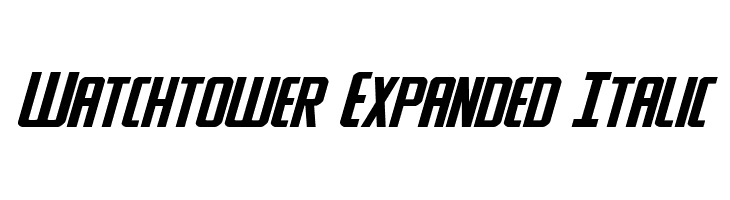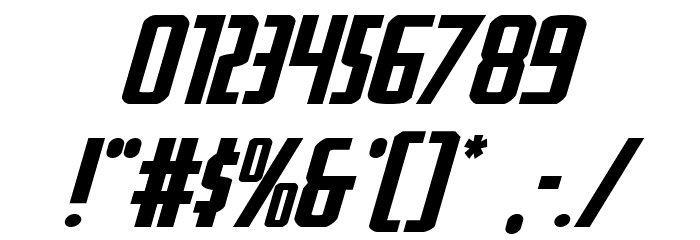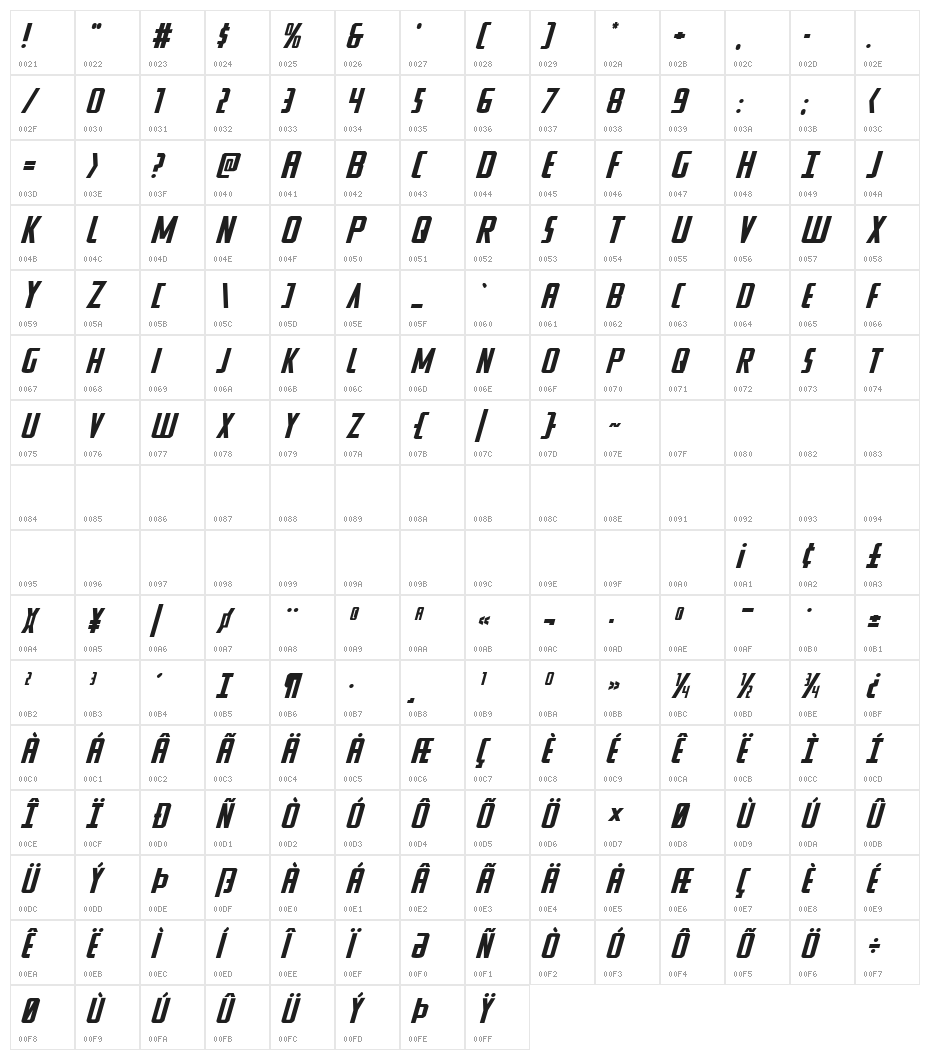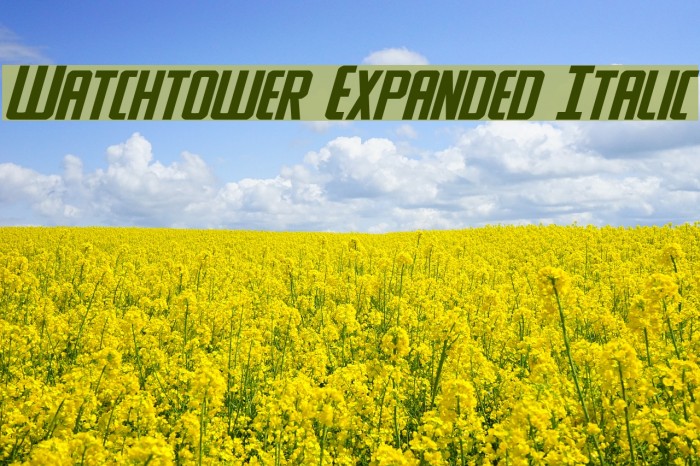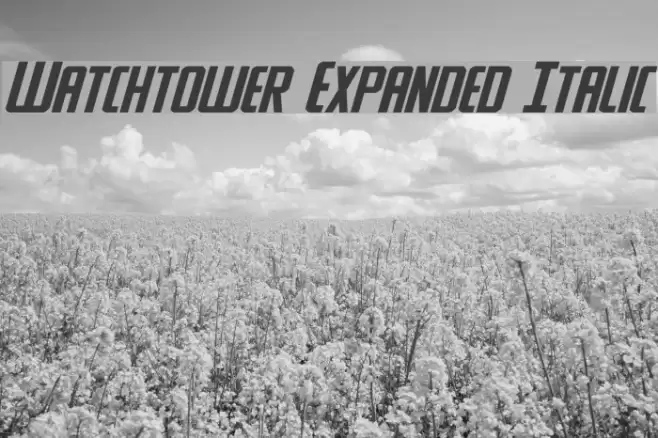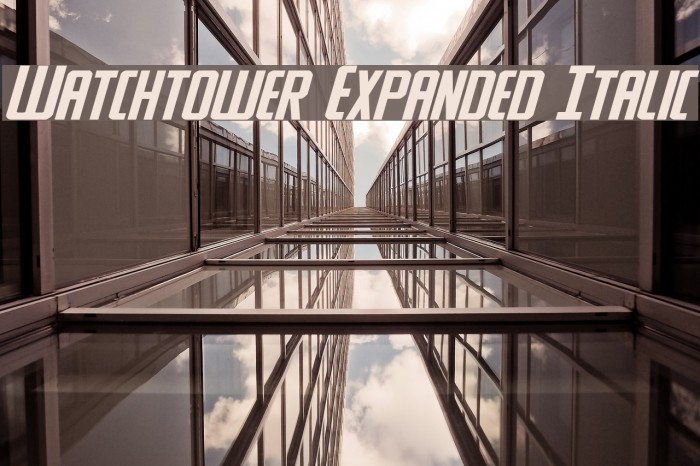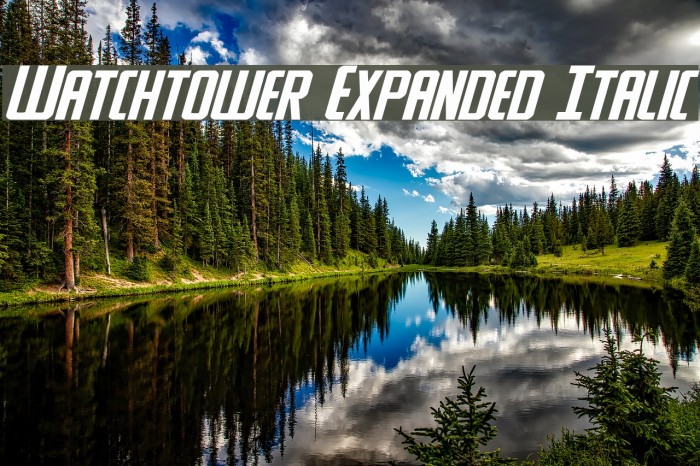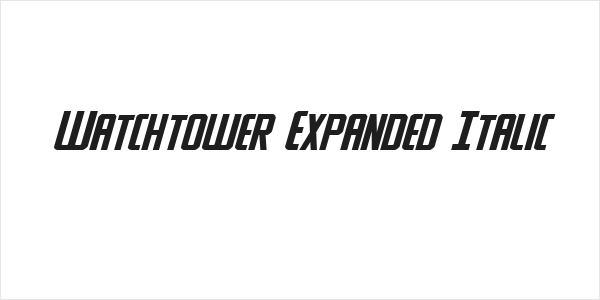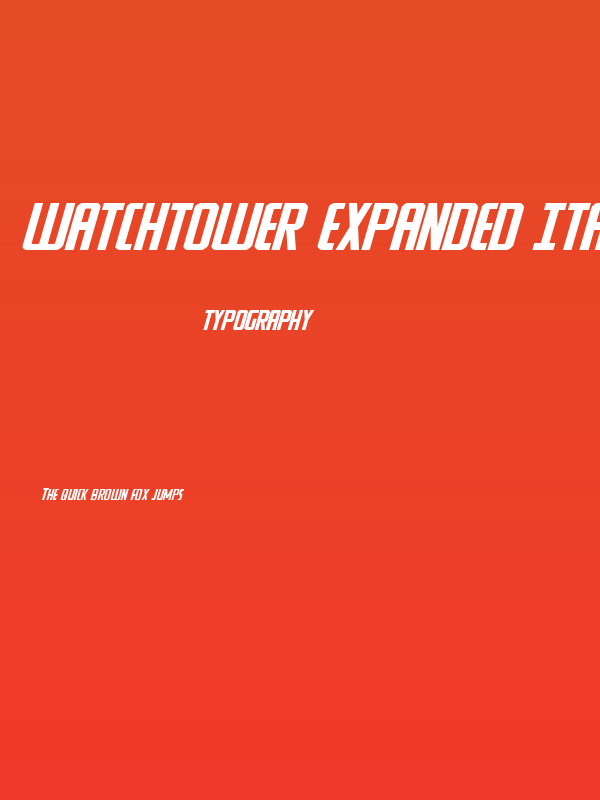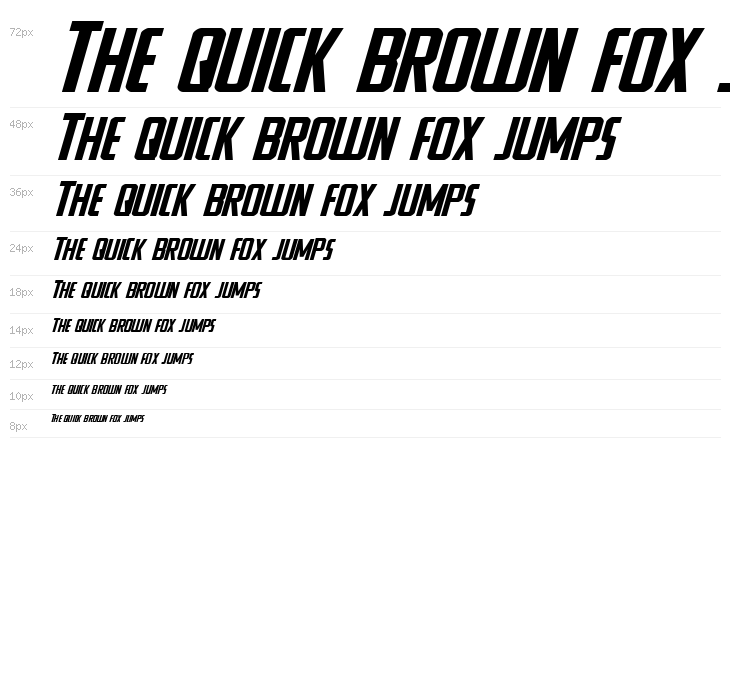
Watchtower Expanded Italic Font
Watchtower Expanded Italic Description
This font features a bold and dynamic style with an italicized slant, giving it a sense of motion and energy. The characters are expanded, providing a wide and commanding presence on the page. The strokes are thick and consistent, contributing to a strong visual impact. The overall design is modern and sleek, suitable for making statements that require attention. The uppercase and lowercase letters maintain a uniform style, while the numbers and special characters are designed to complement the alphabetic characters seamlessly.